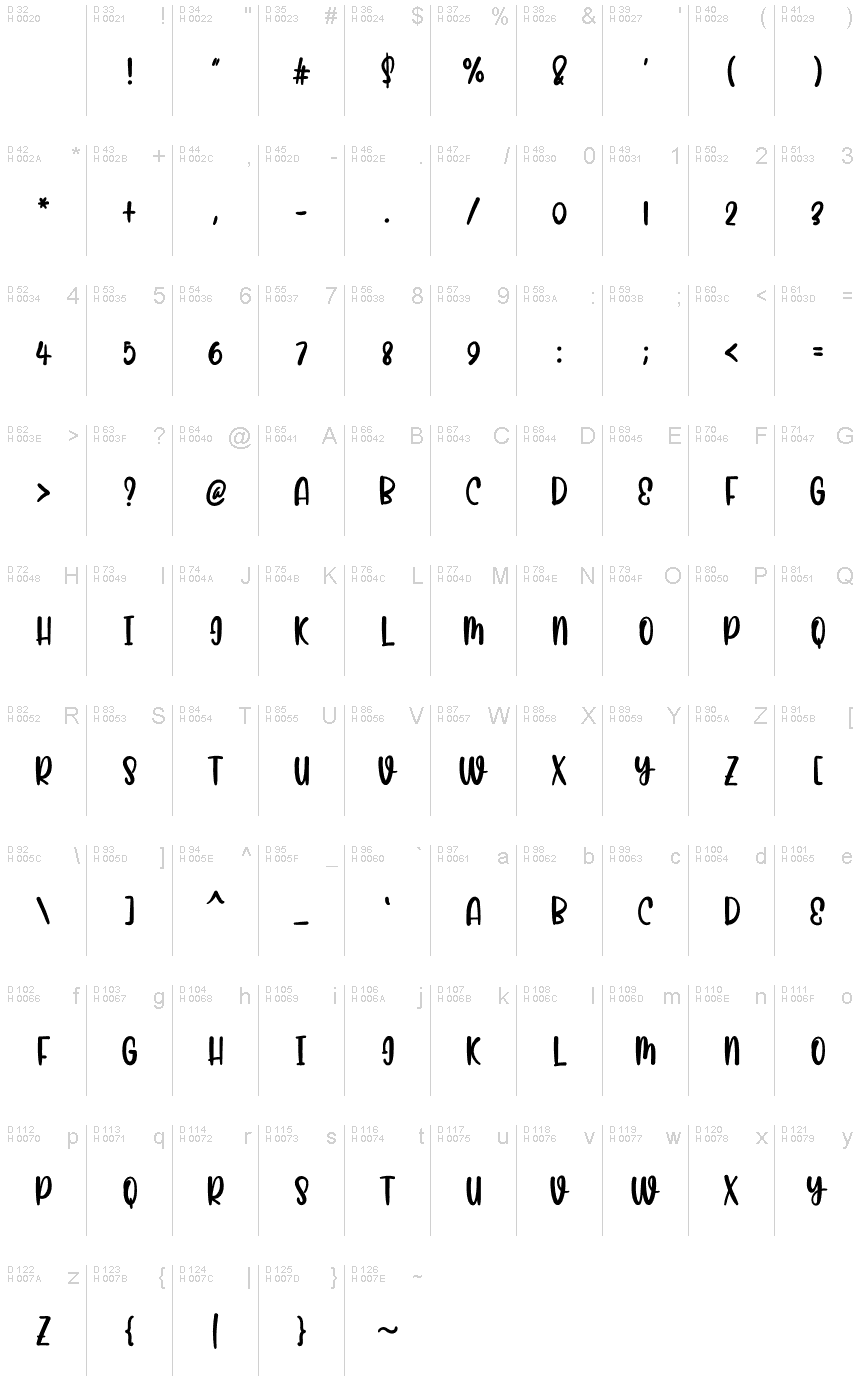
Beautiful Bunny
Beautiful Bunny is a delightful semi-bold font designed by Gunawan. With its cute brush and marker style, this font brings a playful and whimsical feel to any project.
The condensed width of Beautiful Bunny makes it an ideal choice for creating eye-catching headlines, logos, or branding materials that exude charm and creativity. Whether you're designing children's books, greeting cards, or even a trendy cafe menu, Beautiful Bunny will add a touch of cuteness and uniqueness to your creations.